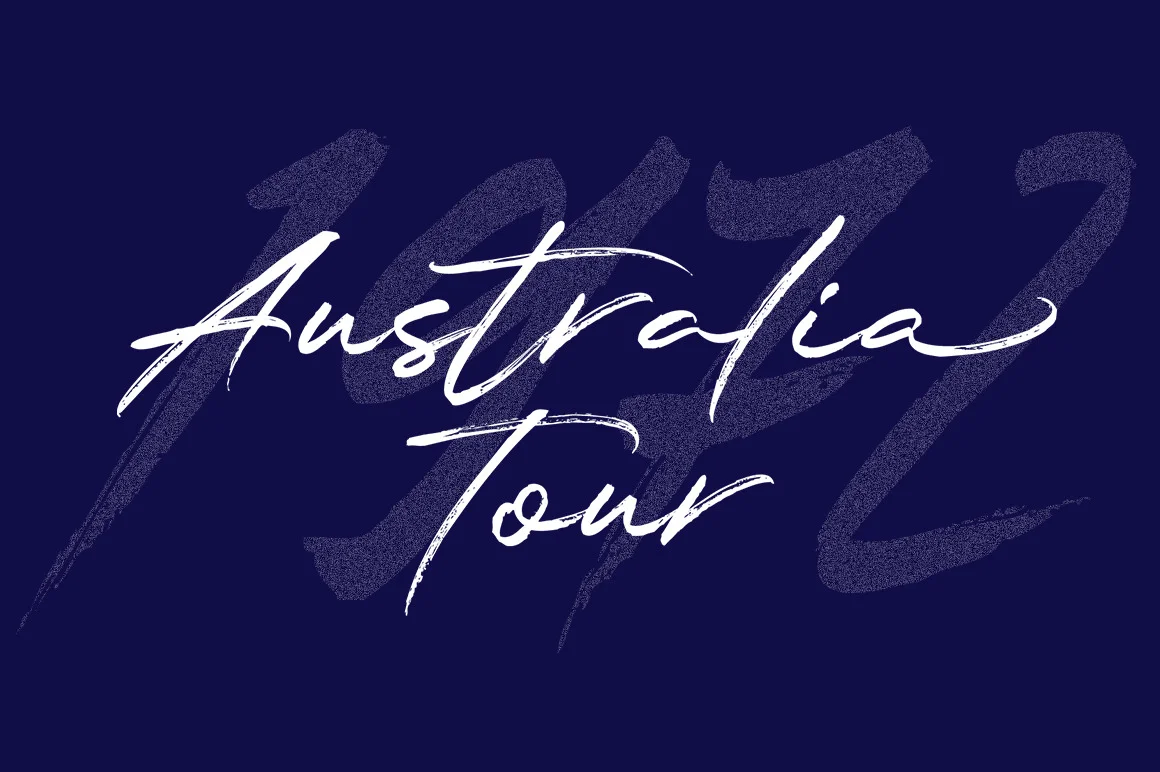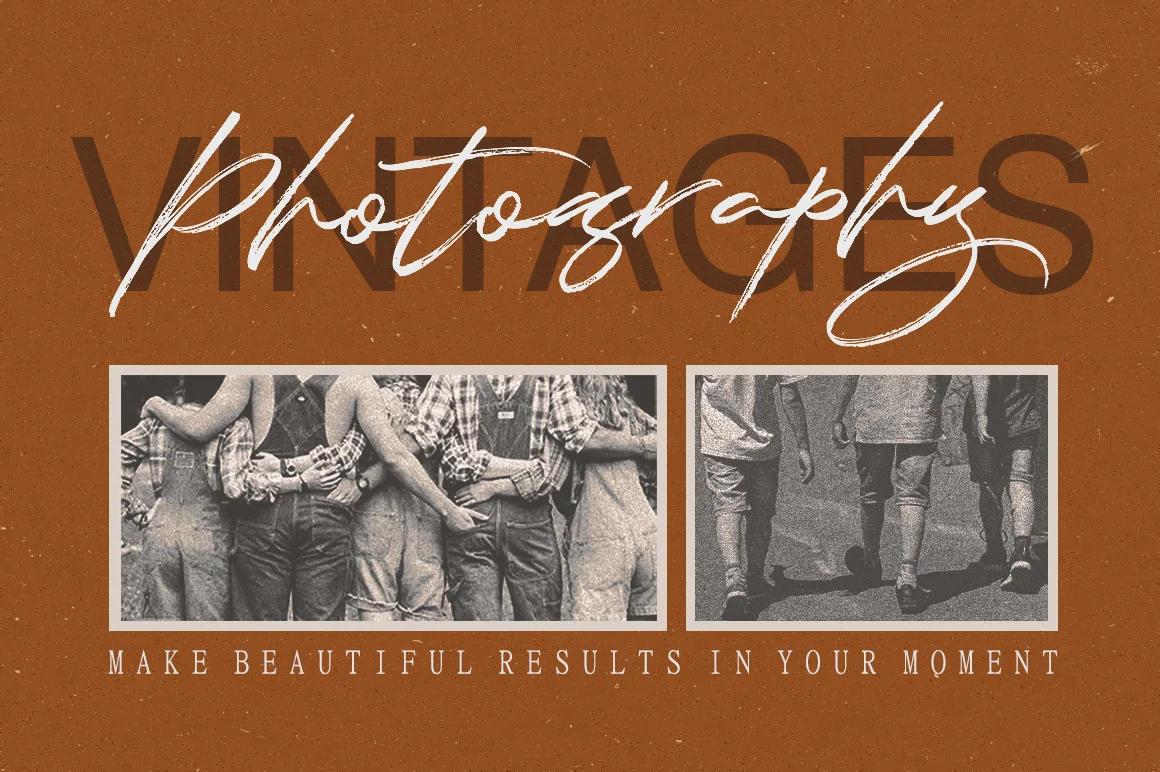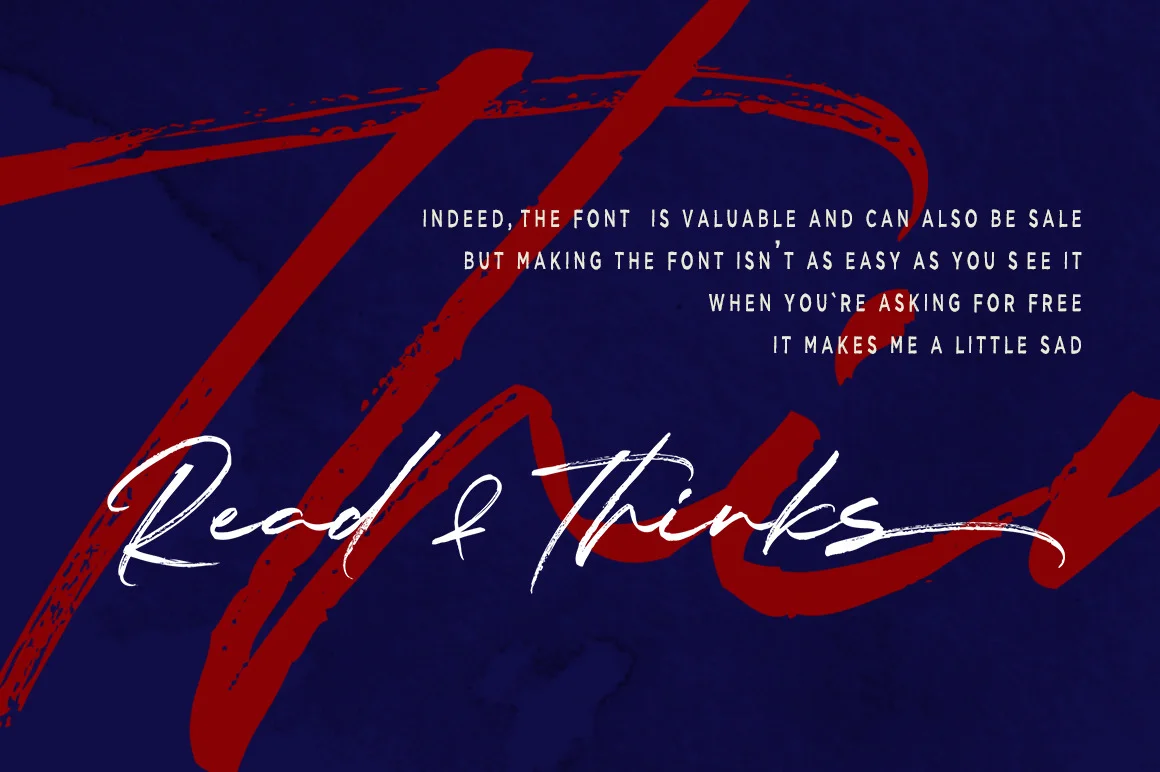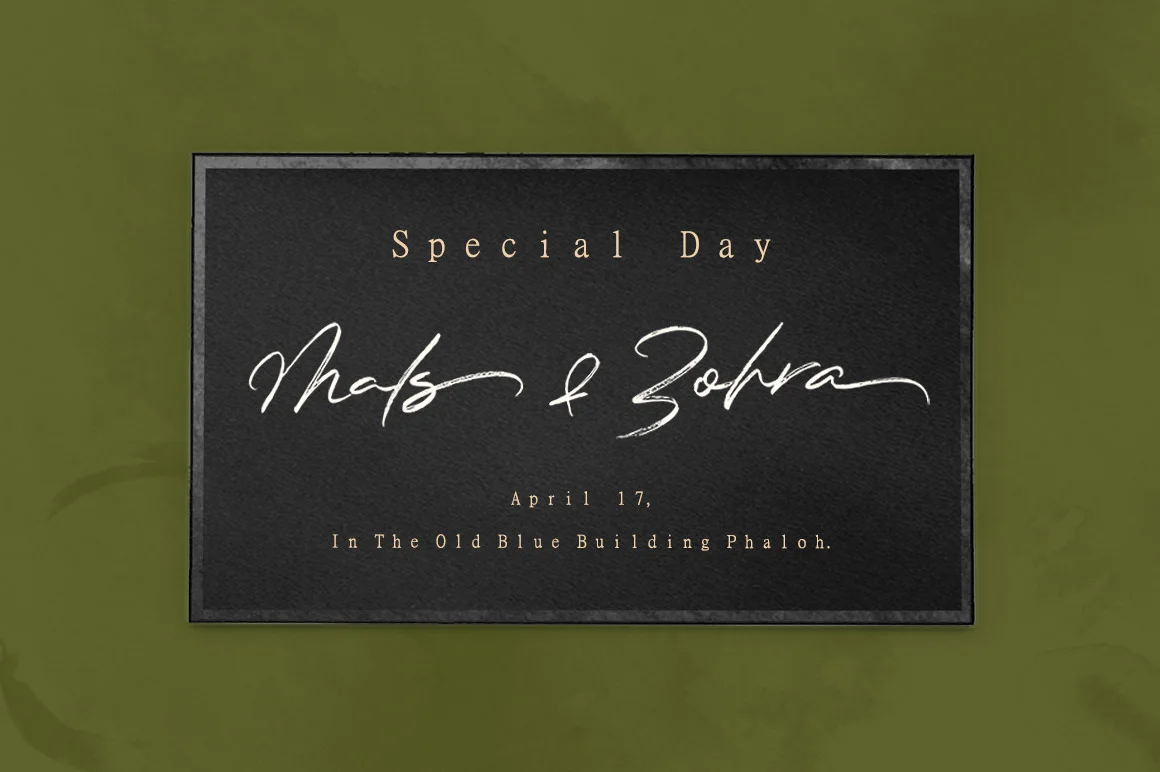
Fragile Script Font
Typography shapes perception at a subconscious level. Fragile Script leverages distinctive character without sacrificing readability to make every composition feel considered. The typeface brings an elegant, calligraphic sensibility to a broad range of creative disciplines, with a confident voice that adapts to diverse briefs that holds up whether the work is print-first or screen-first.
In practice, Fragile Script proves particularly effective for brand identity systems, product labels, fashion editorials, annual reports, packaging design. Designers reaching for it find that the type decisions feel resolved rather than laboured — a useful quality when client timelines are tight.
The range of applications extends to feminine branding, event signage, logo design, perfume labels. That breadth is deliberate: the proportions and spacing were stress-tested across a wide range of mock briefs before the typeface was finalised.
UX designers establishing typographic systems for digital products find Fragile Script a reliable choice for projects that demand both personality and restraint. The design avoids the self-conscious quirkiness that dates quickly, settling instead for considered distinctiveness that holds up over time.